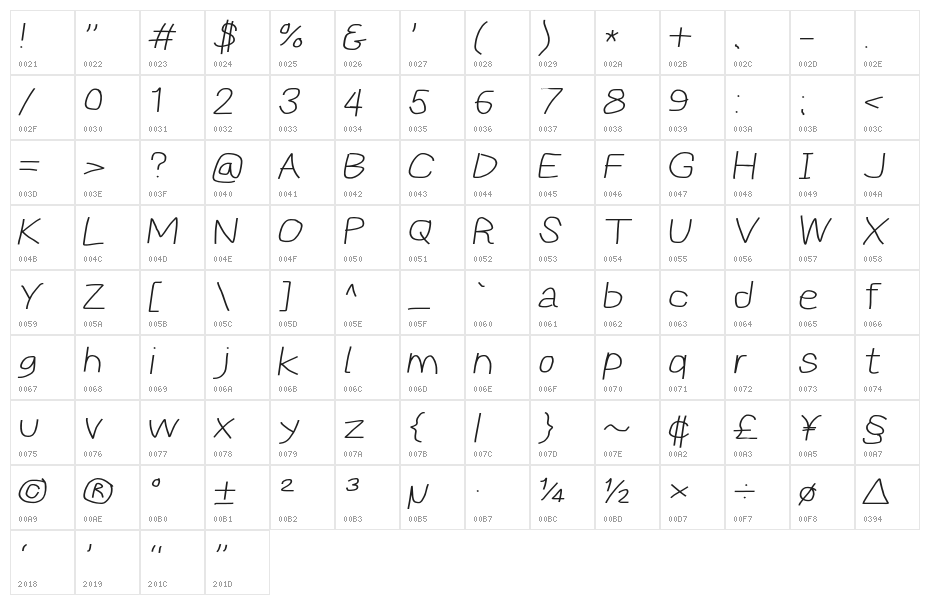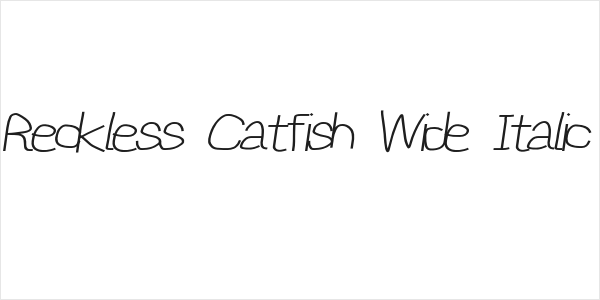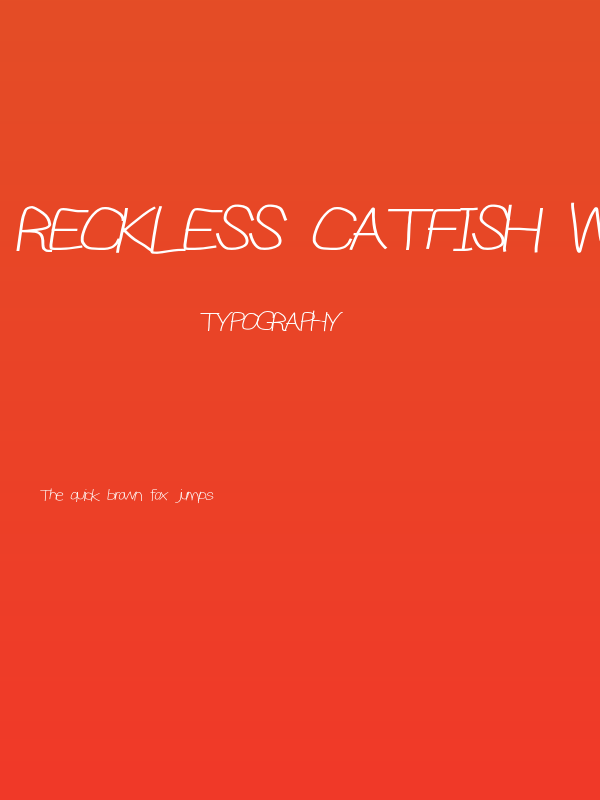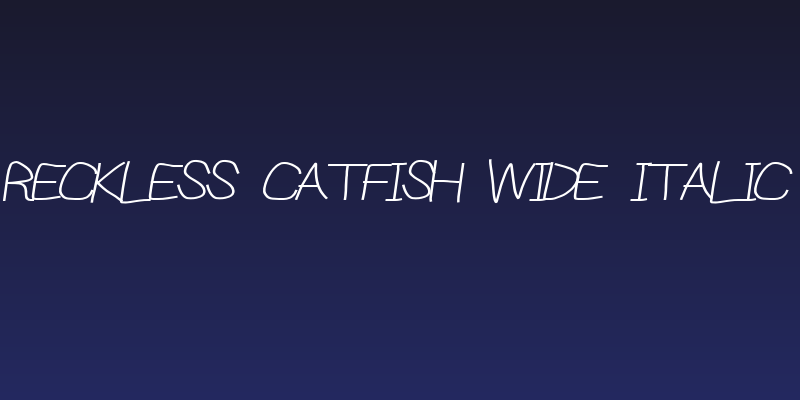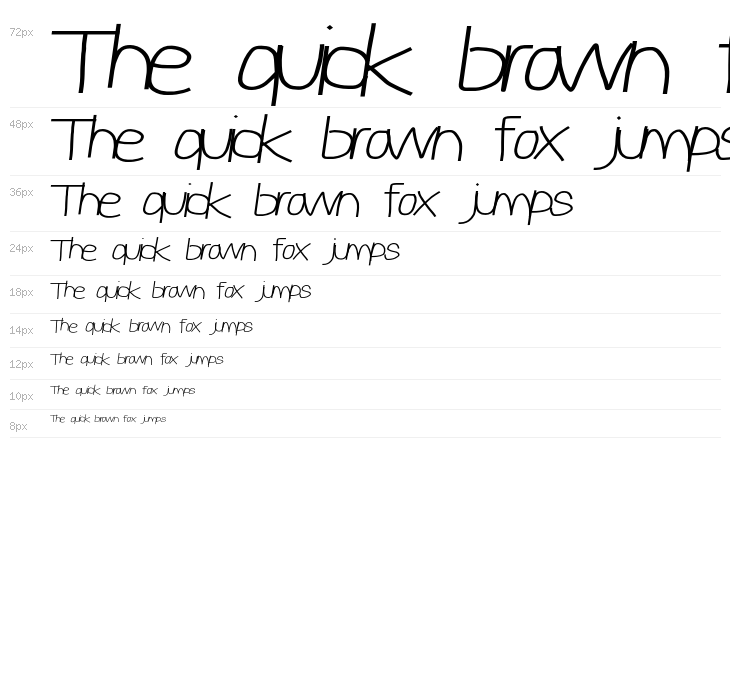
Reckless Catfish Wide Italic Font
Reckless Catfish Wide Italic Description
This font features a playful and dynamic handwritten style with a wide stance and italic slant. The characters are elongated and slightly irregular, giving it a casual and informal appearance. The strokes are consistent in thickness, providing a uniform look across all characters. The uppercase and lowercase letters are distinct, with a noticeable tilt that adds to the font's energetic feel. Numbers and special characters maintain the same whimsical style, making it suitable for creative and expressive designs.